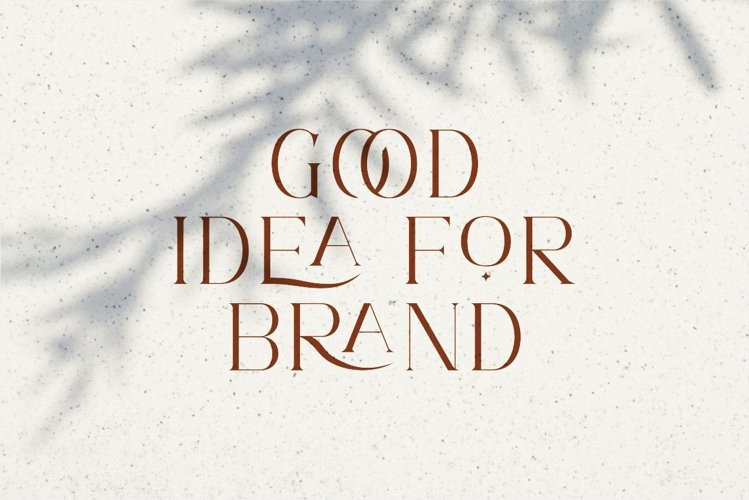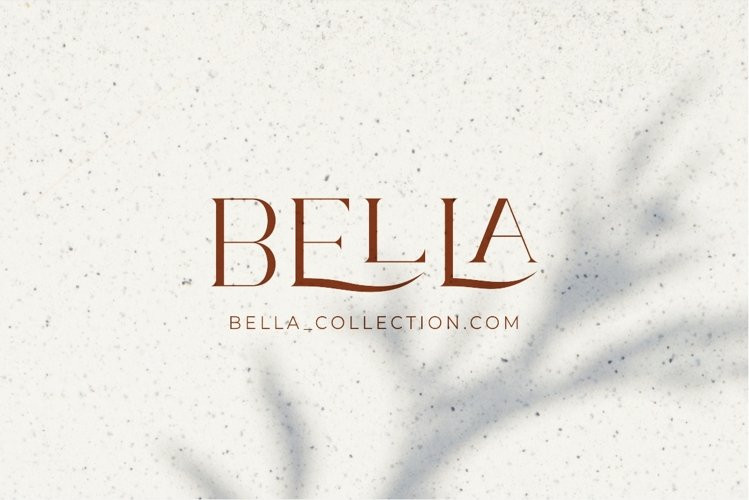
Lorien Font
Lorien FontAccording to the market demand, the font is more likely to be a modern font, so I decided to make this serif font in your view. Lorien font is a serif font with many ligatures very beautiful and popular, comes in a modern style to become a market favourite. We keep this font looking elegant, classy, ​​easy to read, stylish, attractive and easy to use. Lorien Font is a great choice for beauty brands, magazines, newspapers, books, brand names, branding, brands, quotes, album covers and other projects. Lorien font is here to elevate the quality of your designs to new heights.